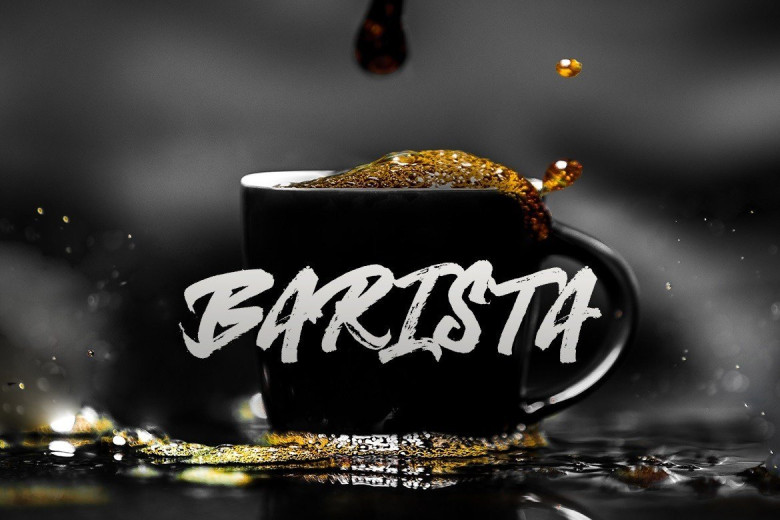
Hypetype Brush Script Font
Hypetype is a painted brush font. It will elevate a wide range of design projects to the highest level, be it branding, headings, wedding designs, invitations, signatures, logos, labels, and much more!